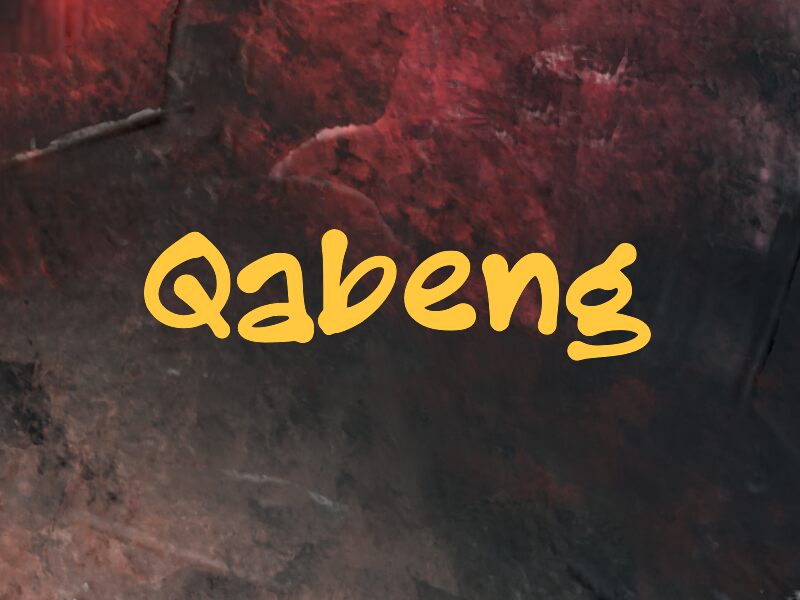
Qabeng font was designed by wep as an energetic and lively free font. With a cartoon style, Qabeng is incredibly friendly and creative. Each letter has its unique character adding to the overall visual interest. Broad and extended strokes, geometric shapes with rounded corners, and square-ish forms keep it casual and informal. The font is presented with an illustration of a boy with a neck shape that mimics the font’s visual style to give a more accurate usage preview.
Qabeng is great for designing posters and flyers especially those with children’s content. Develop cartoon book covers, advertising campaigns for games and events, or adding text to animated illustrations. Logo design and architectural/cultural projects including museums, parks, entertainment centers, expos, and institutions can also use Qabeng in one way or another. Explore the full potential of Qabeng wherever there is a need to add a modern, lively, and dynamic touch.
Qabeng is a modern typeface designed specifically to elevate your projects. With its unique style and versatility, this free font is perfect for a variety of applications, including branding, advertising, and web design. The elegant curves and clean lines contribute to its contemporary look, making it an ideal choice for any creative work.